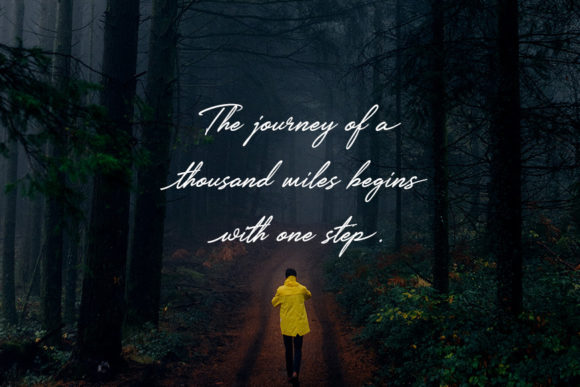
Destiny Font
db-ku.com - Script & Handwritten -- Destiny is a luxurious and slim charactered script font. It is perfect for product packaging, branding project, magazine covers, social media, wedding, or just used to express words above the background.